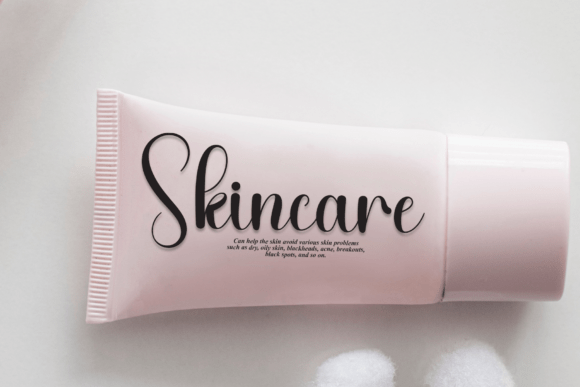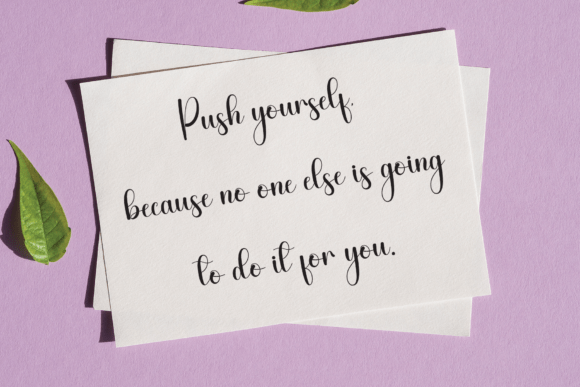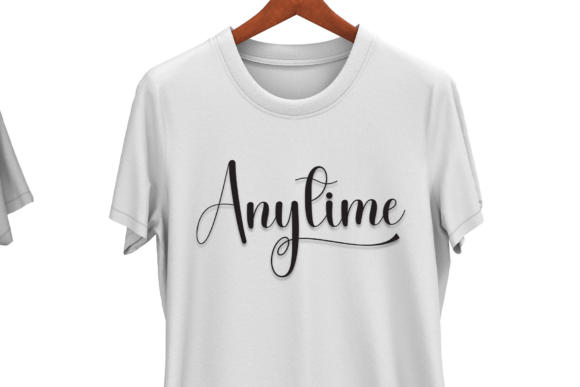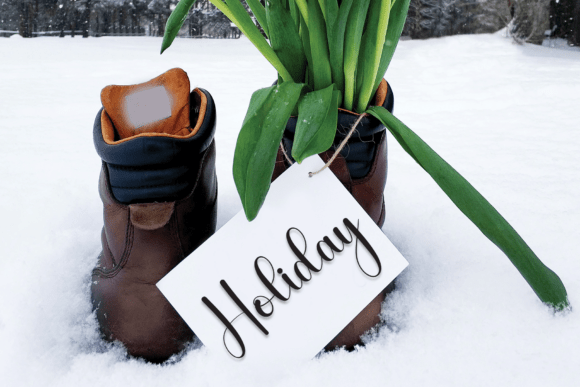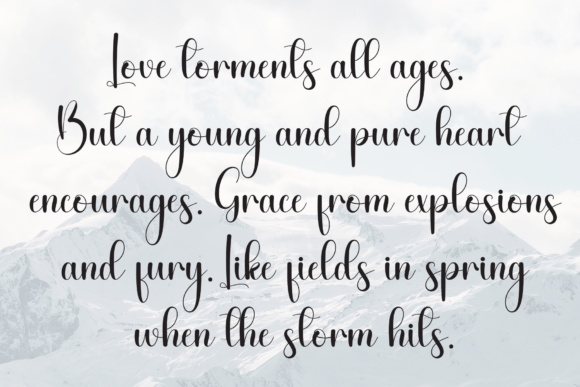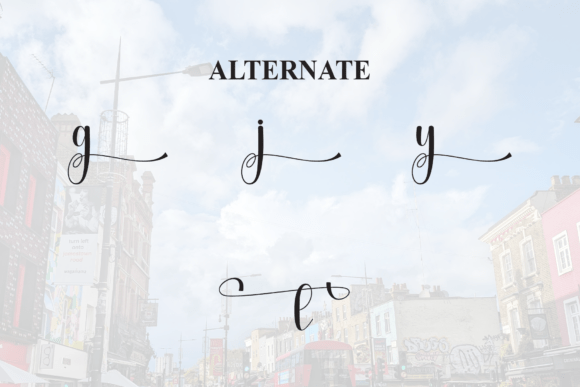
Introducing Brightown Font: A Delightful Handwritten Display Font
Are you looking for a font that exudes joy, friendliness, and playfulness? Look no further than Brightown Font, a charming handwritten display font that’s perfect for adding a touch of whimsy to your designs. In this article, we’ll dive into the features and benefits of Brightown Font, and explore how you can use it to elevate your creative projects.
A Font that Captures the Essence of Joy and Friendliness
Brightown Font is a delightful and inviting font that’s designed to bring a smile to your face. Its charming and playful character makes it an excellent choice for crafting captivating wedding invitations, heartfelt greeting cards, or any design that requires a dash of fun and whimsy. Whether you’re a designer, crafter, or DIY enthusiast, Brightown Font is sure to inspire your creativity and help you create designs that are both visually appealing and emotionally resonant.
Wedding invitations and greeting cards are special occasions that deserve a font that’s both elegant and playful. Brightown Font is an excellent choice for these types of designs, as it adds a touch of whimsy and personality to your message. Imagine creating beautiful wedding invitations that set the tone for a joyful and celebratory occasion, or crafting heartfelt greeting cards that make your loved ones feel special and appreciated.
Unleash Your Creativity with Brightown Font
Brightown Font is more than just a font – it’s a creative tool that can help you unleash your imagination and bring your designs to life. With its playful and charming character, you can use Brightown Font to create a wide range of designs, from:
• Wedding invitations and greeting cards
• Party invitations and event flyers
• Blog headers and titles
• Branding and packaging designs
Key Features of Brightown Font
So, what makes Brightown Font so special? Here are some of its key features:
• Handwritten display font: Brightown Font is a handwritten display font that’s designed to add a touch of personality and whimsy to your designs.
• Charming and playful character: Brightown Font has a charming and playful character that’s perfect for creating designs that are both visually appealing and emotionally resonant.
• Excellent for wedding invitations and greeting cards: Brightown Font is an excellent choice for wedding invitations and greeting cards, as it adds a touch of elegance and playfulness to your message.
Tips for Using Brightown Font
Here are some tips for using Brightown Font in your designs:
• Use it sparingly: Brightown Font is a display font, so it’s best to use it sparingly to add emphasis and personality to your designs.
• Pair it with other fonts: Brightown Font can be paired with other fonts to create a unique and visually appealing design.
• Experiment with colors and textures: Brightown Font can be used with a range of colors and textures to add depth and interest to your designs.
In conclusion, Brightown Font is a delightful and inviting handwritten display font that’s perfect for adding a touch of joy, friendliness, and playfulness to your designs. With its charming and playful character, Brightown Font is an excellent choice for crafting captivating wedding invitations, heartfelt greeting cards, or any design that requires a dash of fun and whimsy. So why not give Brightown Font a try and see how it can help you unleash your creativity and bring your designs to life?